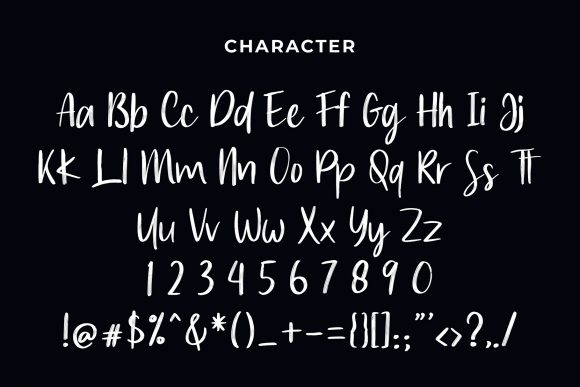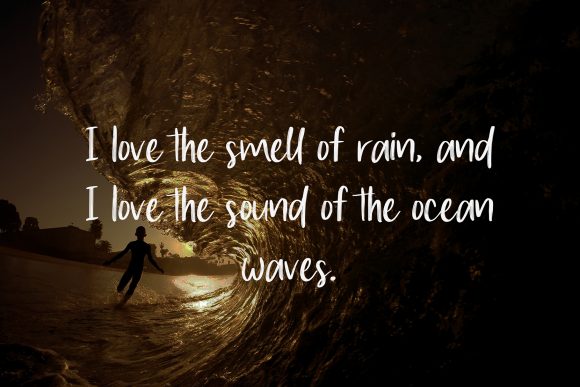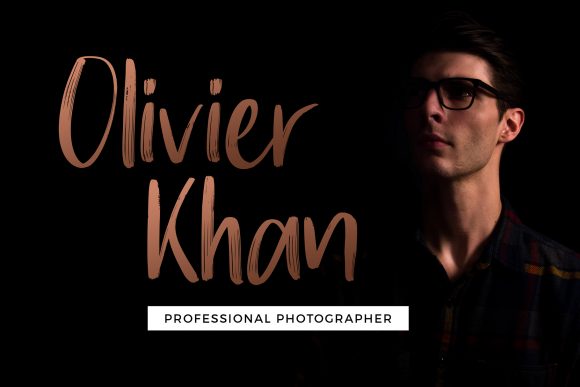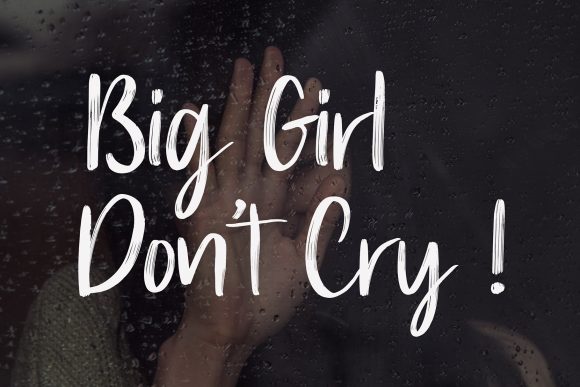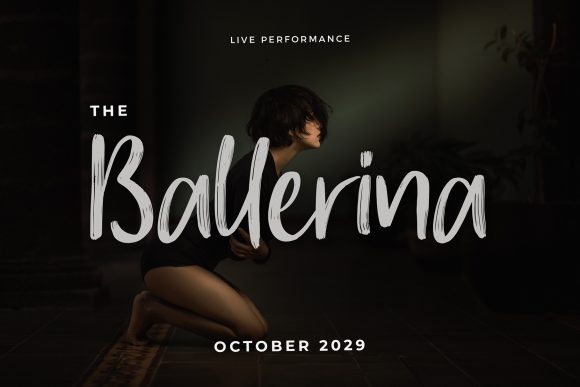
The Font that Stole My Heart: A Deep Dive into Caroline
I still remember the design project that led me to discover Caroline, a cool, relaxed brushed handwritten font. I was working on a branding project for a trendy coffee shop, and I was struggling to find the perfect font to capture their laid-back vibe. That’s when I stumbled upon Caroline, and it instantly became my go-to font. In this article, I’ll share my love for Caroline, its features, and how to make the most of it in your designs.
An Honest Review of Caroline
What I Love About Caroline ✨
- ✅ Its unique, hand-crafted feel that adds a personal touch to any design
- ✅ The perfect blend of modern and vintage elements, making it versatile for various projects
- ✅ The range of OpenType features, including glyphs and stylistic alternates, that allow for endless creativity
- ✅ Its readability, even at smaller font sizes, making it perfect for body text
- ⚠️ Some users might find the font a bit too casual for formal projects, but I believe it’s perfect for creative endeavors
- ⚠️ The font might not be the best choice for very long texts, as it can get a bit tiresome to read
A Practical Guide to Using Caroline
The Story Behind Caroline
Caroline was designed with the intention of creating a font that felt both modern and approachable. Its creator aimed to craft a font that would be perfect for creative projects, such as branding, packaging, and advertising. With its unique blend of hand-crafted and digital elements, Caroline has become a favorite among designers and crafters alike.
Q: Is Caroline suitable for body text?
A: Yes, Caroline is surprisingly readable, even at smaller font sizes, making it perfect for body text.
Q: Does Caroline come with OpenType features?
A: Yes, Caroline includes a range of OpenType features, such as glyphs and stylistic alternates, that allow for endless creativity.